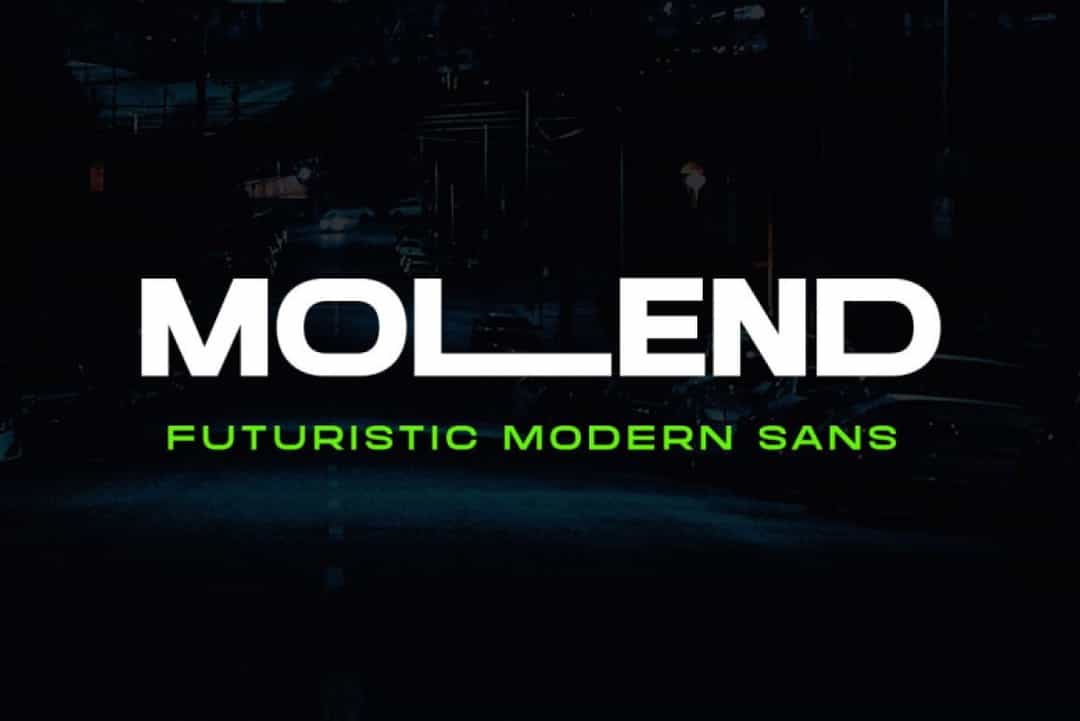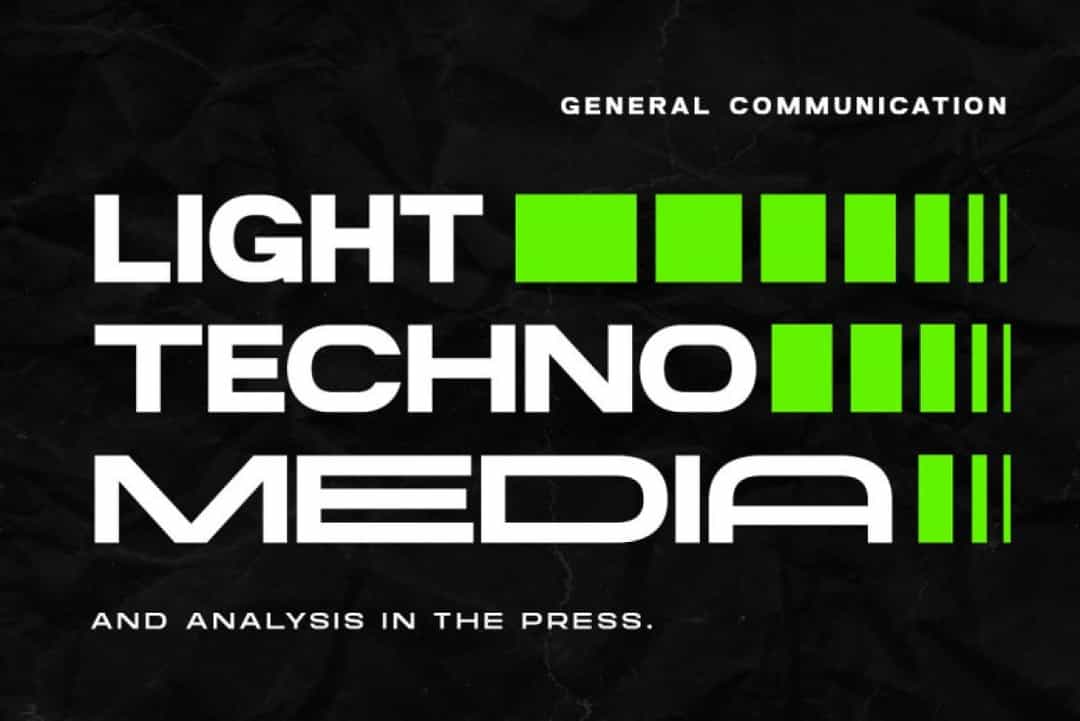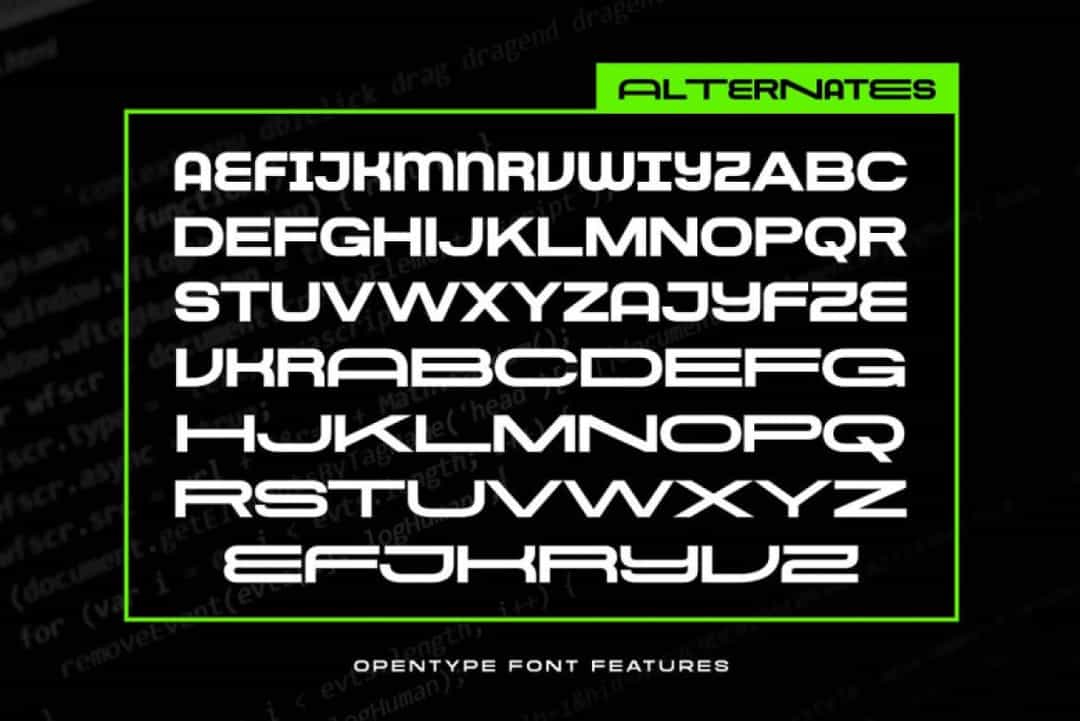
Molend is an innovative display sans font that allows users to adjust letter width in order to create unique designs. Inspired by kinetic typography and urban design, this futuristic font boasts futuristic qualities with technological radicalism, raw styles and futuristic styles.